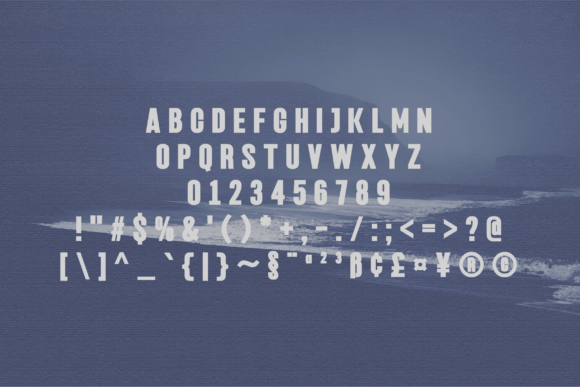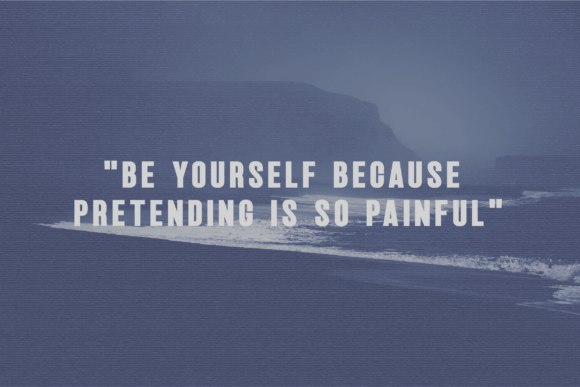
Discovering the Perfect Font: A Designer’s Dream
Have you ever stared at a blank canvas, waiting for the perfect font to emerge and bring your design to life? It’s a moment we’ve all experienced – the thrill of creation, the agony of indecision. But what if I told you that there’s a font that can make all the difference? A font that’s as versatile as it is stunning, and can elevate your design from good to great. Welcome to the world of Exquisite Font.
This all-caps sans serif font is more than just a pretty face – it’s a reliable workhorse that can handle anything from logos and branding to web headings. With its smooth lines, clean design, and subtle contrast, Exquisite Font is the perfect tool for designers looking to create a lasting impression. Whether you’re working on a small project or a large-scale campaign, this font is sure to deliver.
Exquisite Font Key Features
- Font Family: Exquisite Font is a high-end, elegant font family that includes 6 unique styles: Exquisite, Exquisite Bold, Exquisite Italic, Exquisite Bold Italic, Exquisite Script, and Exquisite Script Bold.
- Character Set: Includes a comprehensive character set that supports over 200 languages, making it a versatile choice for global applications.
- Unique Characteristics: Exquisite Font features a unique blend of modern and classic elements, with intricate details and subtle flourishes that add a touch of sophistication to any design.
Exquisite Font Review
I’ve had the chance to work with the Exquisite Font, and I’m excited to share my thoughts with you. ✨ One of the things that really stands out about this font is its elegance and sophistication. It’s perfect for creating a high-end or luxurious feel in your designs.
- ✨ Elegant and refined appearance
- ✨ Great for creating a sense of luxury or sophistication
- ✨ Works well for both body text and headings
- ⚠️ Limited character set, may not be suitable for complex or technical writing
- ⚠️ May not be the best choice for modern or edgy designs
- ⚠️ Can be difficult to read at small font sizes
Overall, I think the Exquisite Font is a great choice for designers who want to create a sense of luxury or sophistication in their designs. However, it may not be the best choice for every project, and you should carefully consider its limitations before using it.
Exquisite Font is ideal for creating elegant and sophisticated designs, such as:
- Book covers and magazine titles
Remember to use Exquisite Font in moderation to avoid overwhelming your design.